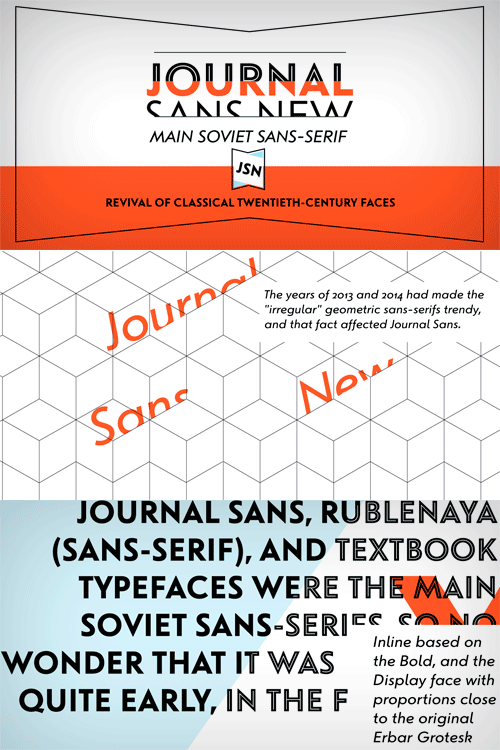
Journal Sans New Font Family
The Journal Sans typeface was developed in the Type Design Department of SPA of Printing Machinery in Moscow in 1940–1956 by the group of designers under Anatoly Schukin. It was based on Erbar Grotesk by Jacob Erbar and Metro Sans by William A. Dwiggins, the geometric sans-serifs of the 1920s with the pronounced industrial spirit. Journal Sans, Rublenaya (Sans-Serif), and Textbook typefaces were the main Soviet sans-serifs. So no wonder that it was digitized quite early, in the first half of 1990s. Until recently, Journal Sans consisted of three faces and retained all the problems of early digitization, such as inaccurate curves or side-bearings copied straight from metal-type version. The years of 2013 and 2014 made «irregular» geometric sans-serifs trendy, and that fact affected Journal Sans. In the old version curves were corrected and the character set was expanded by Olexa Volochay. In the new release, besides minor improvements, a substantial work has been carried out to make the old typeface work better in digital typography and contemporary design practice. Maria Selezeneva significantly worked over the design of some glyphs, expanded the character set, added some alternatives, completely changed the side-bearings and kerning. Also, the Journal Sans New has several new faces, such as true italic (the older font had slanted version for the italic), an Inline face based on the Bold, and the Display face with proportions close to the original Erbar Grotesk. The new version of Journal Sans, while keeping all peculiarities and the industrial spirit of 1920s-1950s, is indeed fully adapted to the modern digital reality. It can be useful either for bringing historical spirit into design or for modern and trendy typography, both in print and on screen. Designed by Maria Selezeneva with the participation of Alexandra Korolkova. Released by ParaType in 2014.